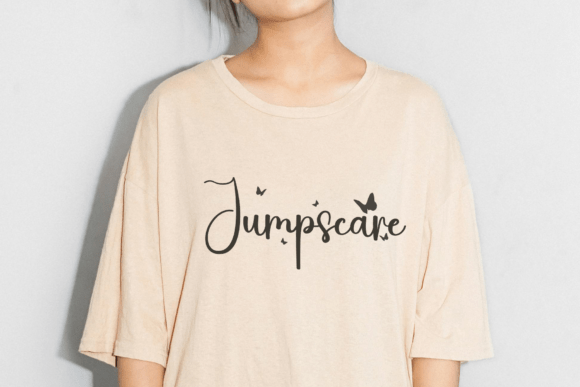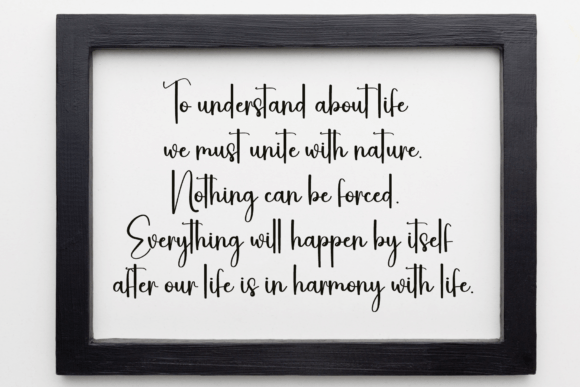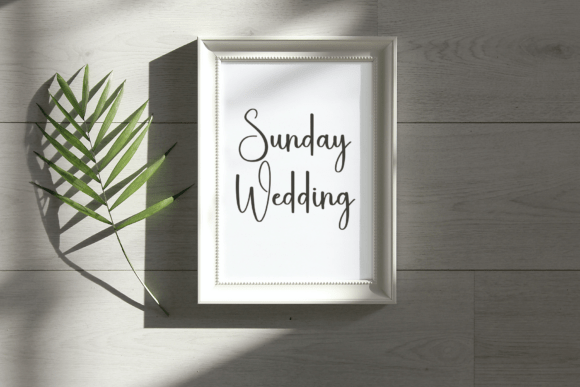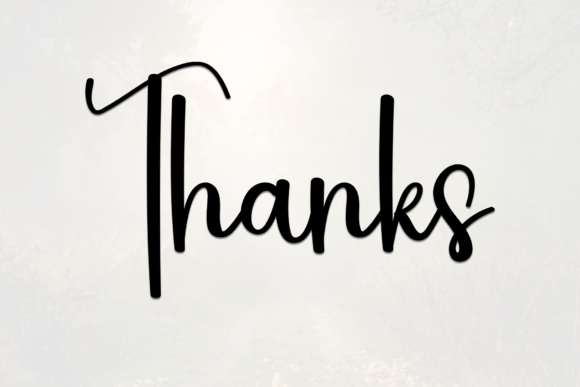
Halloween Font: A Spooky yet Elegant Addition to Your Design Arsenal
As the spookiest time of the year approaches, designers and crafters are on the lookout for the perfect font to add a touch of eeriness to their creations. Look no further than the Halloween Font, a handwritten font that exudes a relaxed and sporty feel. In this article, we’ll dive into the world of Halloween Font, exploring its features, uses, and benefits for designers and crafters alike.
What is Halloween Font?
Halloween Font is a unique, handwritten font that resembles being drawn with a marker. Its casual, laid-back vibe makes it an excellent choice for a wide range of design projects, from branding and logos to wedding supplies, greeting cards, and marketing promotions. This font is perfect for designers who want to add a touch of elegance and sophistication to their work without sacrificing a relaxed, effortless feel.
Key Features of Halloween Font
- Handwritten style: Halloween Font boasts a beautiful, handwritten style that gives it a personal and human touch.
- Marker-like texture: The font’s texture resembles being drawn with a marker, adding a unique and creative element to your designs.
- Relaxed and sporty feel: Halloween Font’s casual vibe makes it perfect for designs that require a laid-back, effortless look.
- Elegant and luxurious: Despite its casual feel, Halloween Font still manages to convey a sense of elegance and sophistication, making it suitable for high-end designs.
Uses of Halloween Font
Halloween Font is an incredibly versatile font that can be used in a wide range of design projects, including:
- Branding and logos: Create a unique and memorable brand identity with Halloween Font’s distinctive style.
- Wedding supplies: Add a touch of elegance and whimsy to your wedding designs, such as invitations, programs, and decorations.
- Greeting cards: Create beautiful and heartfelt greeting cards for special occasions, like birthdays, anniversaries, and holidays.
- Fashion and lookbooks: Use Halloween Font to add a stylish and sophisticated touch to your fashion designs and lookbooks.
- Marketing promotions: Make your marketing materials stand out with Halloween Font’s unique and eye-catching style.
Benefits of Using Halloween Font
So, why should you choose Halloween Font for your design projects? Here are just a few benefits:
- Unique and distinctive: Halloween Font’s marker-like texture and handwritten style set it apart from other fonts, making your designs stand out.
- Versatile: This font can be used in a wide range of design projects, from branding and logos to wedding supplies and greeting cards.
- Elegant and sophisticated: Despite its casual feel, Halloween Font still conveys a sense of elegance and luxury, making it perfect for high-end designs.
- Easy to read: The font’s clear and legible design ensures that your message is conveyed clearly and effectively.
Tips for Using Halloween Font
To get the most out of Halloween Font, here are a few tips to keep in mind:
- Experiment with colors: Halloween Font looks great in a variety of colors, so don’t be afraid to experiment and find the perfect hue for your design.
- Mix and match: Combine Halloween Font with other fonts to create a unique and visually interesting design.
- Pay attention to spacing: Make sure to adjust the spacing between letters and words to ensure that your design looks balanced and harmonious.
In conclusion, Halloween Font is a unique and versatile font that’s perfect for designers and crafters looking to add a touch of elegance and whimsy to their creations. With its marker-like texture, handwritten style, and relaxed yet sophisticated feel, this font is sure to become a staple in your design arsenal. So why wait? Download Halloween Font today and start creating spooky yet elegant designs that will leave a lasting impression!